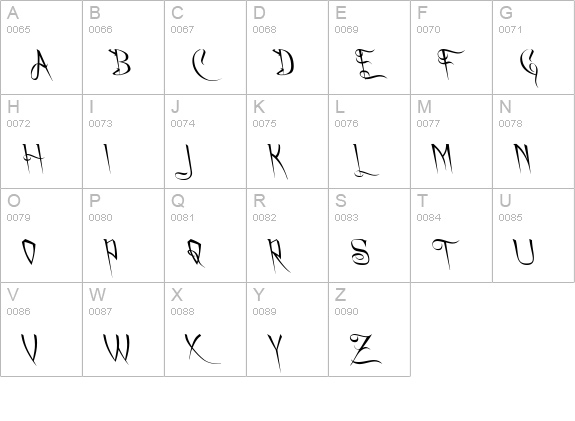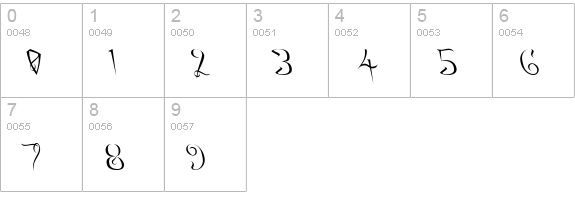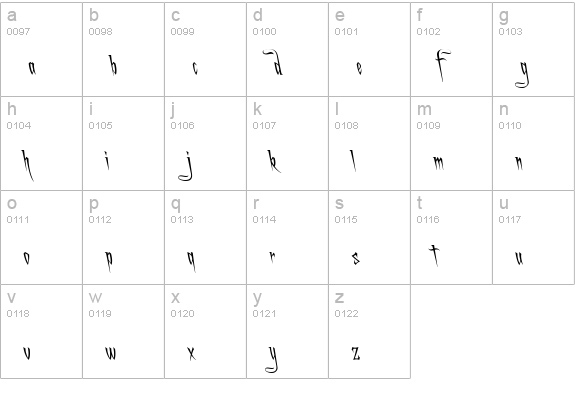
A Charming Font Leftleaning Font Details
Introducing A Charming Font Leftleaning, a delightful and charismatic font that will add a touch of elegance and whimsy to any design project. This font exudes a sense of grace and charm, with its slightly slanted letters that create a visually appealing and unique aesthetic. A Charming Font Leftleaning is the perfect choice for those seeking a font that effortlessly combines sophistication with a hint of playfulness. Its soft curves and gentle strokes give it a friendly and approachable feel, making it versatile for a wide range of design applications. Whether you're creating invitations, greeting cards, logos, or headlines, A Charming Font Leftleaning will elevate your designs to new heights. Its legibility and readability make it suitable for both print and digital media, ensuring that your message is conveyed clearly and effectively. And the best part? A Charming Font Leftleaning is available for free download at FontsMarket.com. Yes, you read that right – this incredible font can be yours at absolutely no cost. Simply visit FontsMarket.com and discover a world of creative possibilities waiting for you. So why wait? Embrace the charm and elegance of A Charming Font Leftleaning and let your creativity shine. Download this captivating font today and watch as your designs come to life with a touch of enchantment.